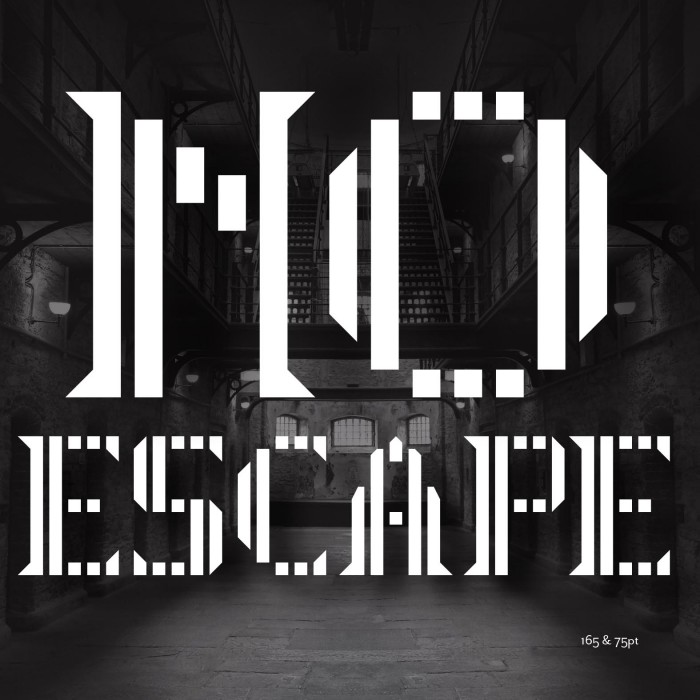
The offset heights make this striped design eye catching and novel; the resulting display font is lifed above others following the 'striped' idea. Well done. The sample is excellent.
Cell 13by Ariel Needham (Cynmay)